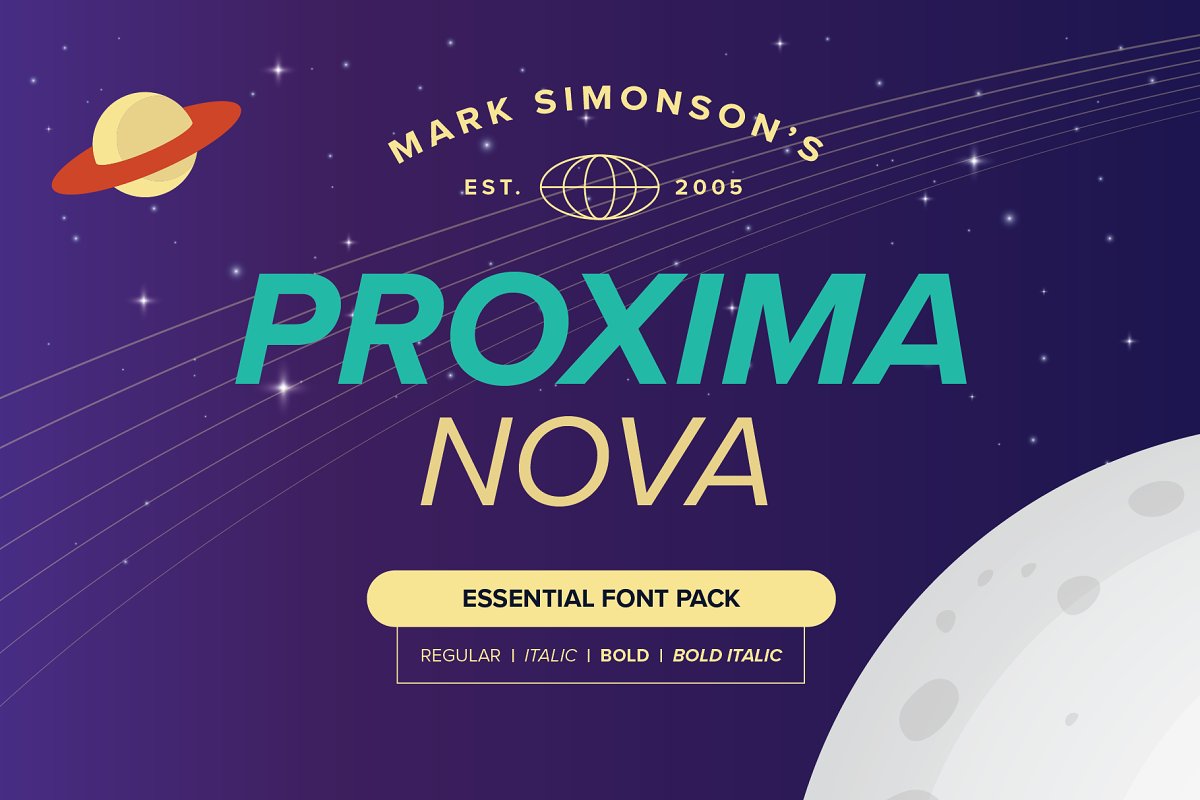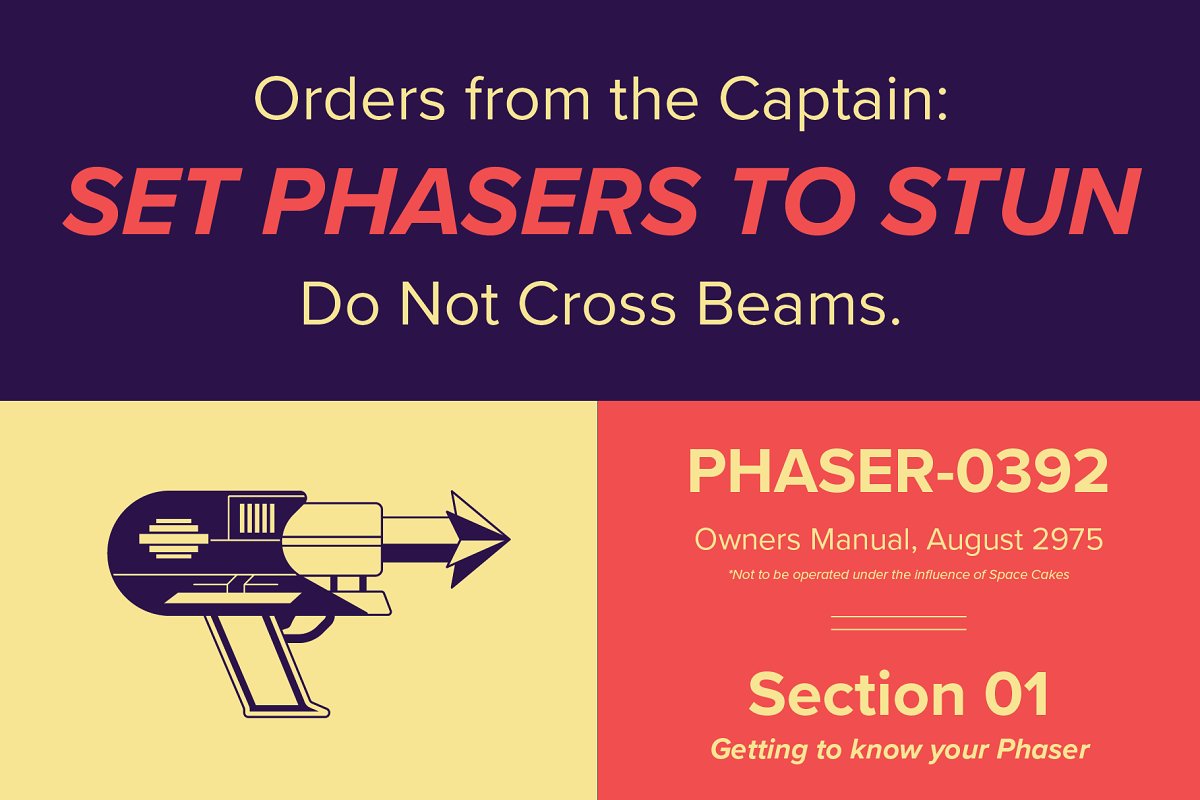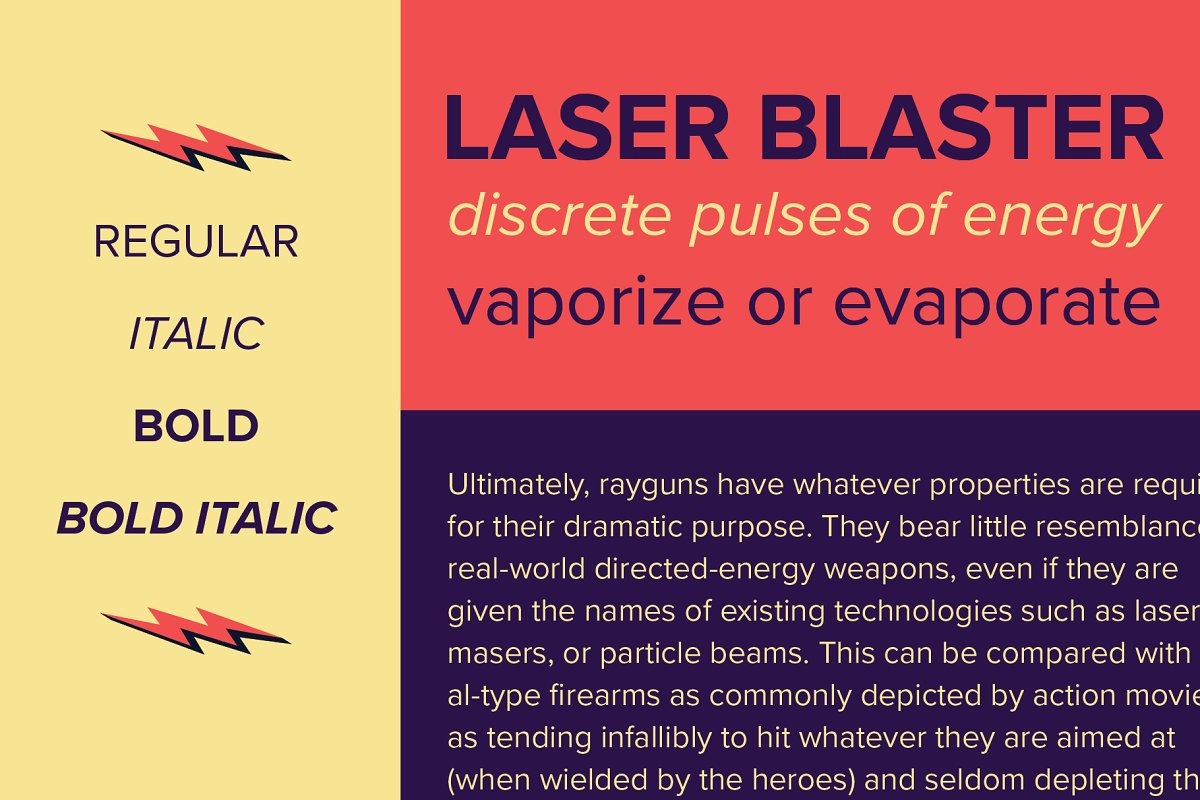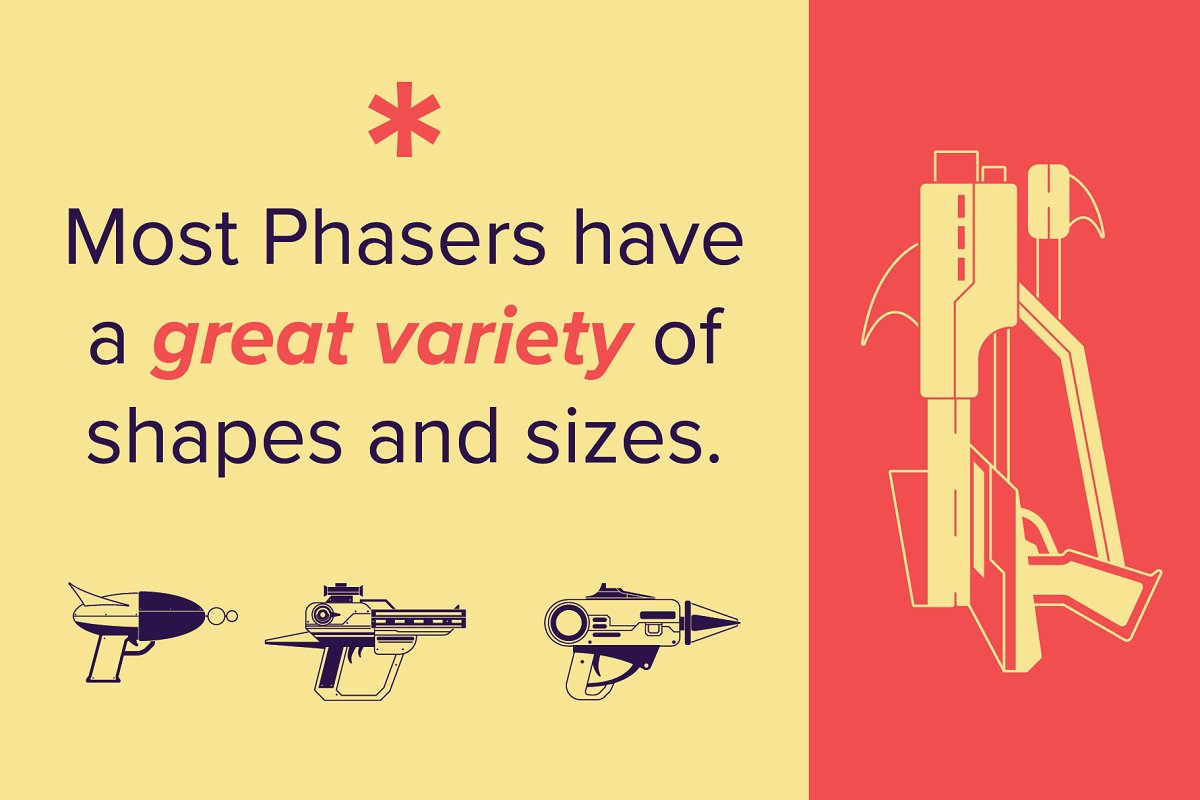
About the Proxima Nova Essential Font Pack
Mark Simonson originally released it in 1994 as Proxima Sans with a basic character set in three weights (Regular, Medium, and Black) with italics, He expanded the original six fonts into a full-featured and versatile family of 42 fonts (seven weights in three widths with italics)
Simonson has continually updated and expanded Proxima Nova since 2005, more than doubling the character set from 700 in its initial release to 1453 characters in the latest version, Additions have included support for Greek, Cyrillic, and Vietnamese, numerous currency symbols, as well as a Medium weight for all three widths and italics, bringing the total number of fonts in the family to 48
Since the mid-2010s, Proxima Nova has become the most popular commercial (paid) font on the web, used on thousands of websites around the world,